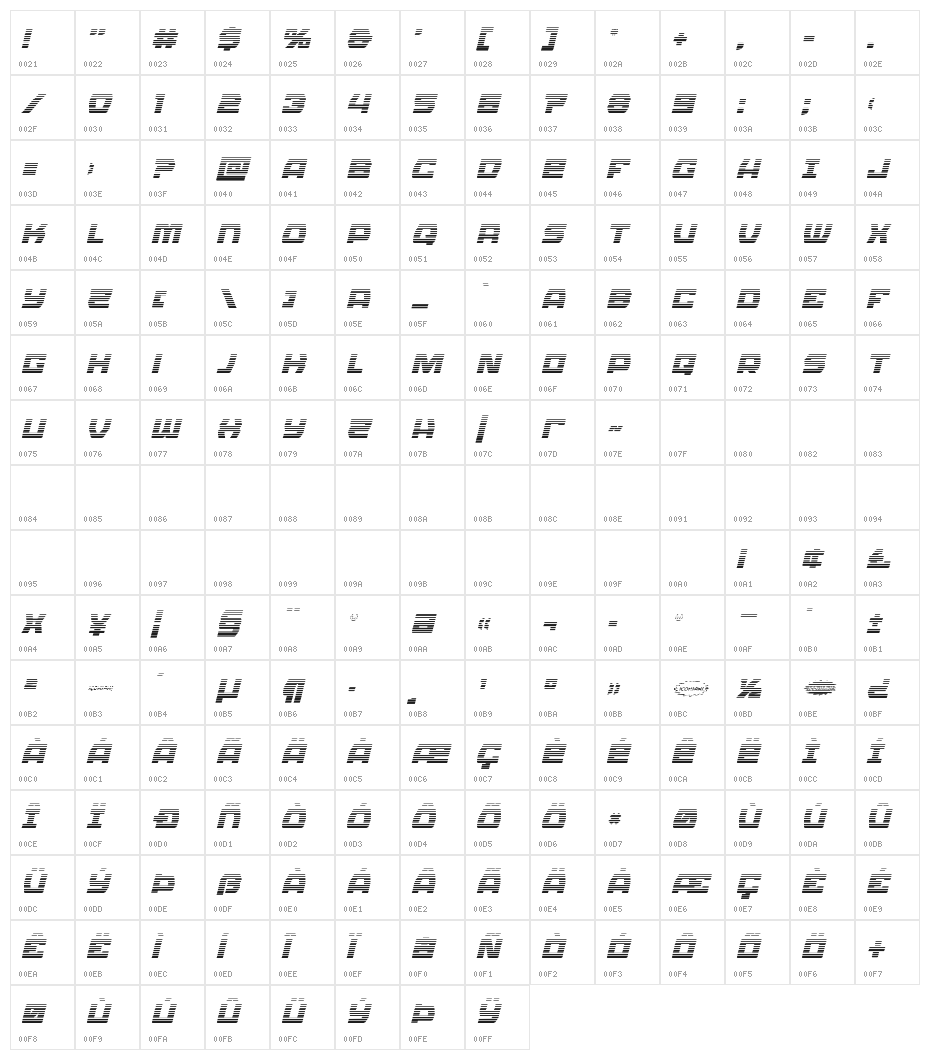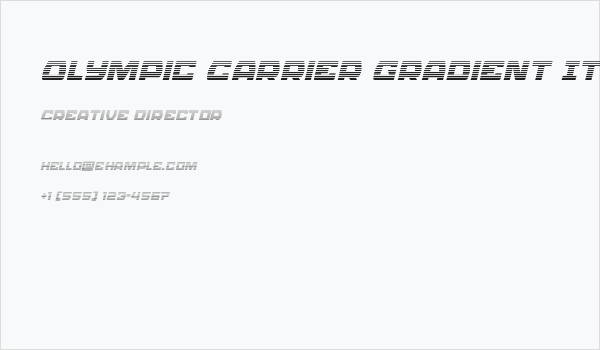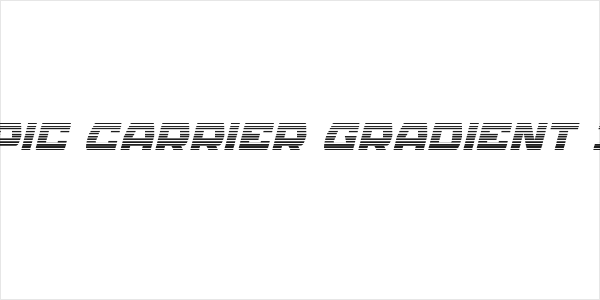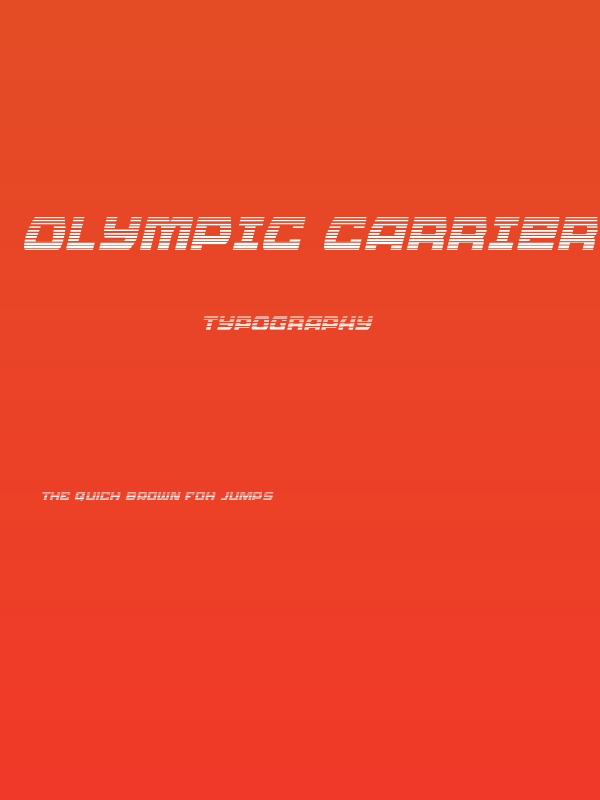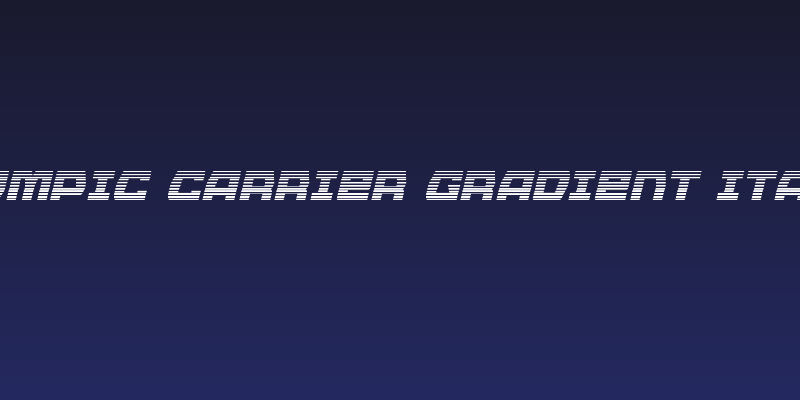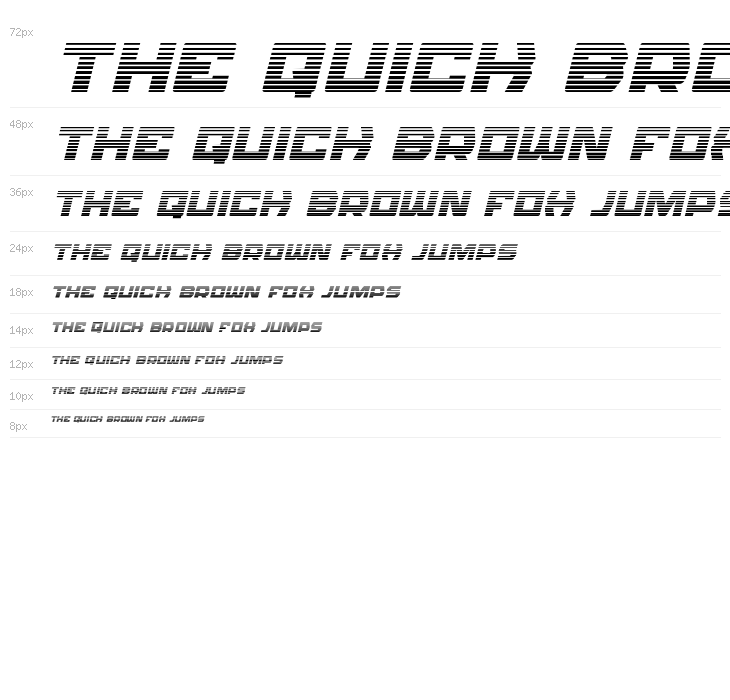
Olympic Carrier Gradient Italic Font
Olympic Carrier Gradient Italic Description
This font features a bold, italicized style with a unique gradient effect created by horizontal lines running through each character. The design gives a sense of movement and speed, making it ideal for dynamic and energetic projects. The uppercase and lowercase letters maintain a consistent style, with sharp angles and clean lines. The numbers and special characters are designed to match the overall aesthetic, ensuring a cohesive look across all text elements. This font stands out with its modern and futuristic appeal, perfect for projects that require a strong visual impact.
| Proposed Projects | Ideal for sports branding, automotive designs, futuristic themes, and dynamic advertisements. |